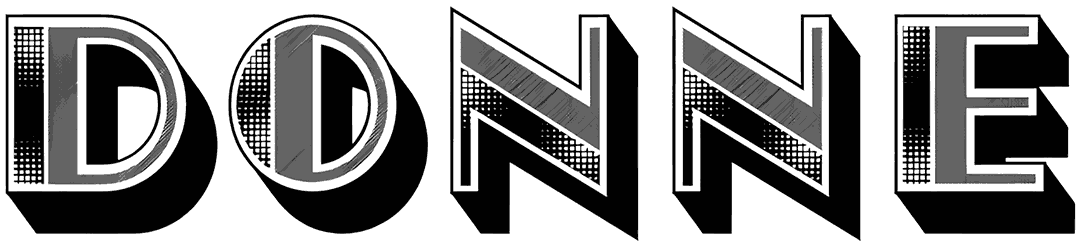
Donne Font
People who are interested in the designs of the nineties and eighties will indeed find this Donne font useful to them. One of the essential features of this retro font is that in the two types presented, the texture of the characters is a grid and three-dimensional.
Also, note that this 3D font does not support lowercase letters and numbers; instead, it is more suited for using posters, banners, t-shirts, and a few nineties casino designs.
It comes in Regular and Malicious.